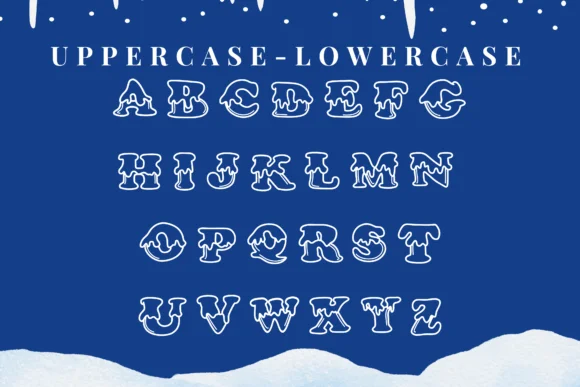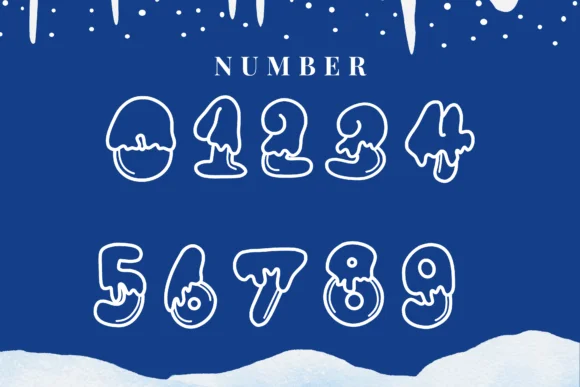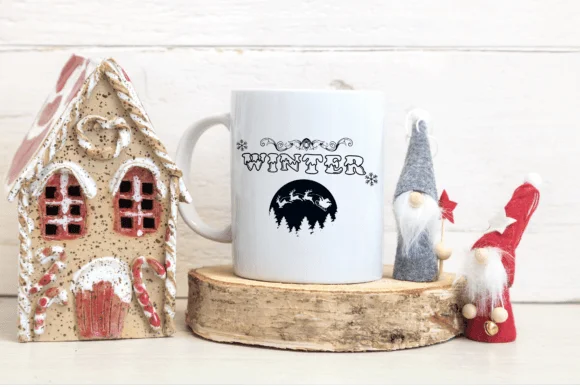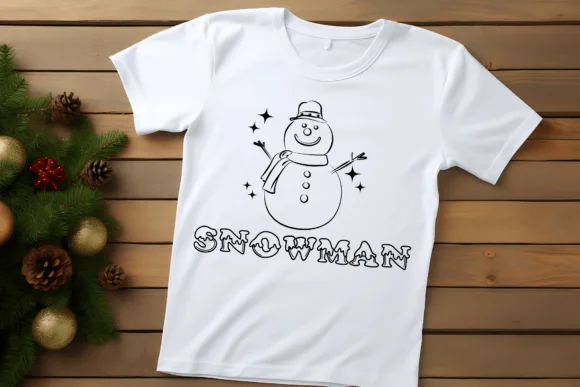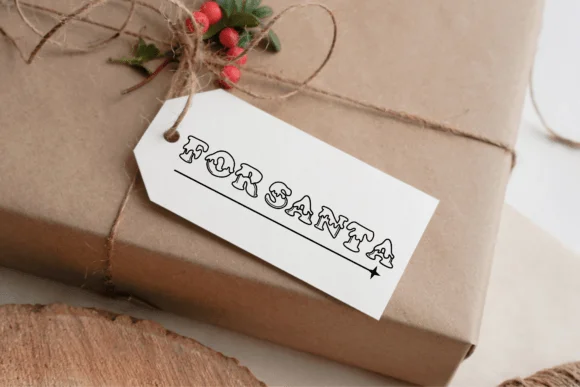
Snow Christmas Font
This crystalline font is perfect for winter wonderland decorations, snowy Christmas cards, white Christmas celebrations, winter holiday events, snow-themed Christmas parties, frosty seasonal branding, icy Christmas displays, winter sports Christmas marketing, snowy holiday packaging, and pristine winter Christmas messaging.
Snow Christmas Font is exciting because it captures the pristine beauty and magical tranquility of fresh snowfall through its delicately crystalline letterforms that mirror the intricate patterns and ethereal quality of snowflakes drifting silently through winter air. The font features soft, frosted characters with gentle edges and crystalline details that evoke the peaceful serenity of a snow-covered Christmas morning, incorporating subtle texture variations and ice-crystal flourishes that create the visual impression of letters formed from freshly fallen snow. Each character showcases the delicate precision and natural artistry that makes every snowflake unique, with organic curves and frosted accents that capture the way snow transforms ordinary landscapes into magical winter wonderlands. The design perfectly embodies the pure, innocent beauty of a white Christmas, creating typography that feels as fresh and peaceful as the first snowfall of the season.
The Snow Christmas Font family includes winter-inspired variations: Regular, Bold, Light, Crystalline, and Drift versions. The collection features special snow elements including snowflake accents, ice crystal details, frost patterns, and winter storm flourishes. Additional components include snowy borders, crystalline frames, winter decorations, and frosty ornamental designs that enhance the font's snow Christmas appeal and create cohesive white winter holiday themes.
Winter resort operators and cold-weather celebrants will find Snow Christmas Font to be an exceptional choice for creating atmospheric holiday communications that celebrate the natural beauty and peaceful magic of snowy Christmas celebrations. This elegantly crafted font transforms ordinary winter messaging into serene expressions that evoke the wonder and tranquility of Christmas snow that blankets the world in pristine beauty.
The typeface includes comprehensive character support with crystalline styling that maintains excellent readability while conveying the delicate beauty and peaceful serenity of Christmas snow. The font's pristine design ensures stunning results across both outdoor winter applications and indoor snow-themed celebrations.
Perfect for winter resorts, ski lodges, snowy Christmas events, and white Christmas celebrations, this font delivers serene visual impact that communicates purity, tranquility, and the magical beauty of snow that transforms Christmas into a winter wonderland of peace and natural splendor.